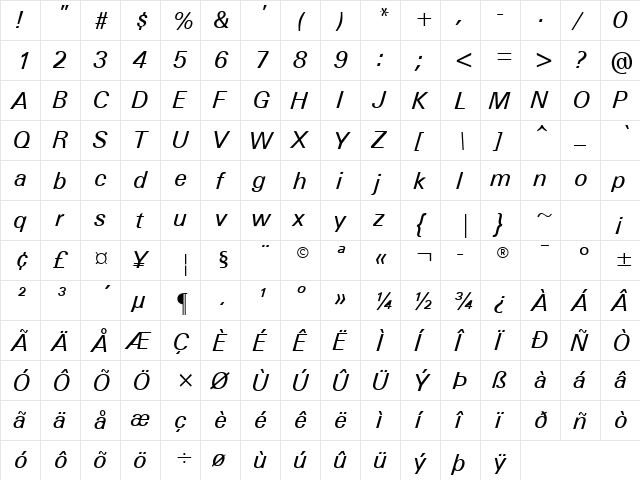
Black Dog 14 Italic Font Preview
Black Dog 14 Italic
Black Dog 14 Italic Font Details
Design Context for Black Dog 14 Typeface
Black Dog 14 takes a measured approach to typography — its balanced proportions and neutral character make it a reliable workhorse for both digital and print work. Its italic angle brings a sense of urgency and motion to the letterforms.
Pro Tip: Try Black Dog 14 for annotation and caption copy alongside an upright companion — the contrast in angle creates a dynamic but ordered typographic system.